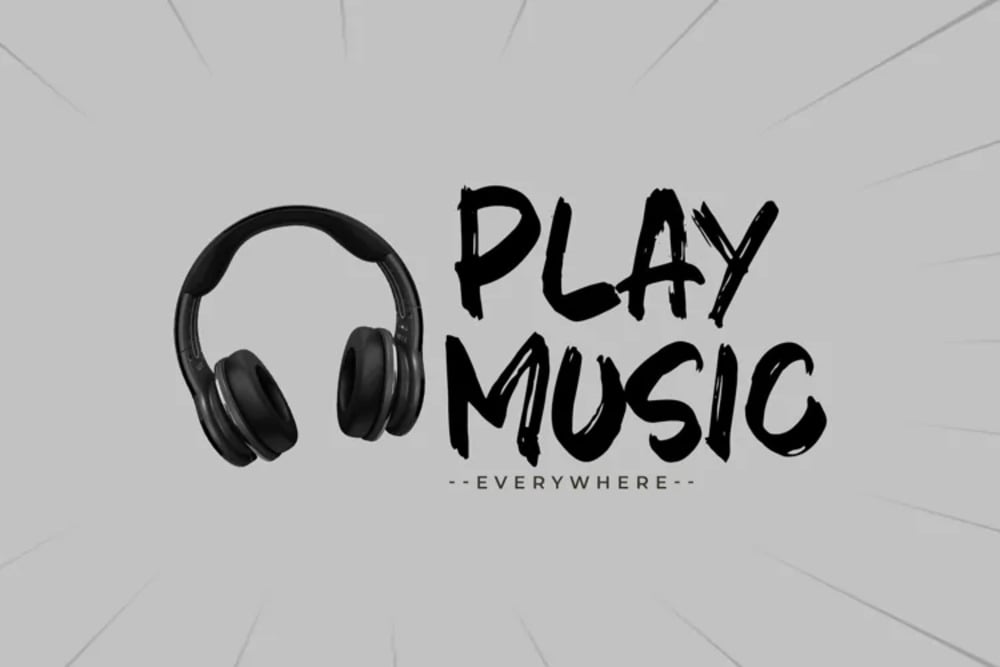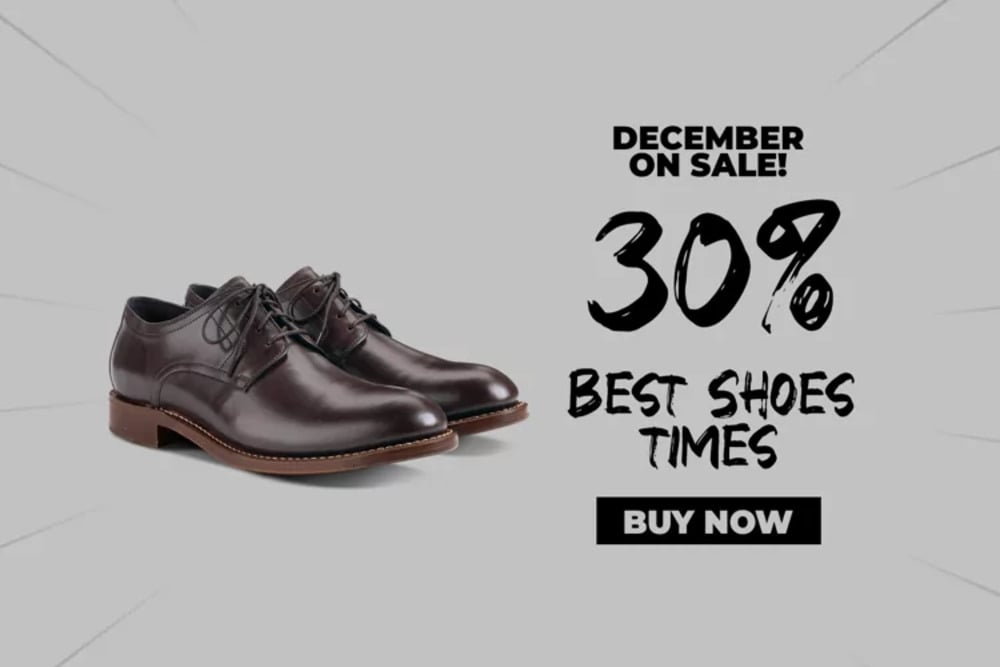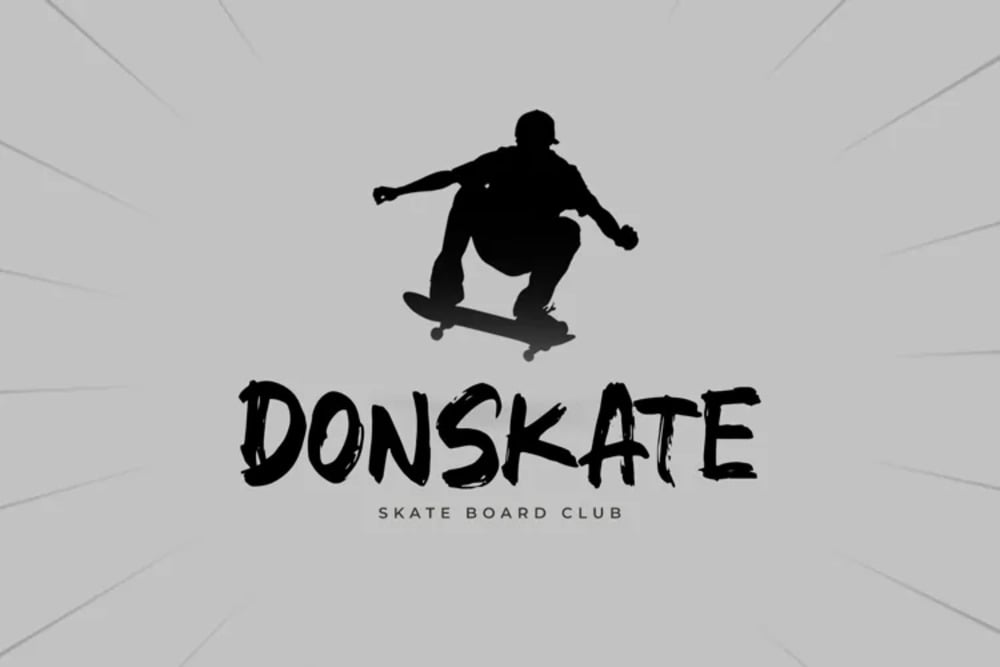
Brat Town Font
Brat Town is a spirited brush font, brimming with youthful energy. Its hand-painted aesthetic and slightly rebellious vibe make it ideal for projects seeking a touch of playful defiance. Think bold statements on posters, eye-catching logos, edgy album art, or anything that needs a dose of unapologetic personality. Brat Town adds a raw, authentic touch.